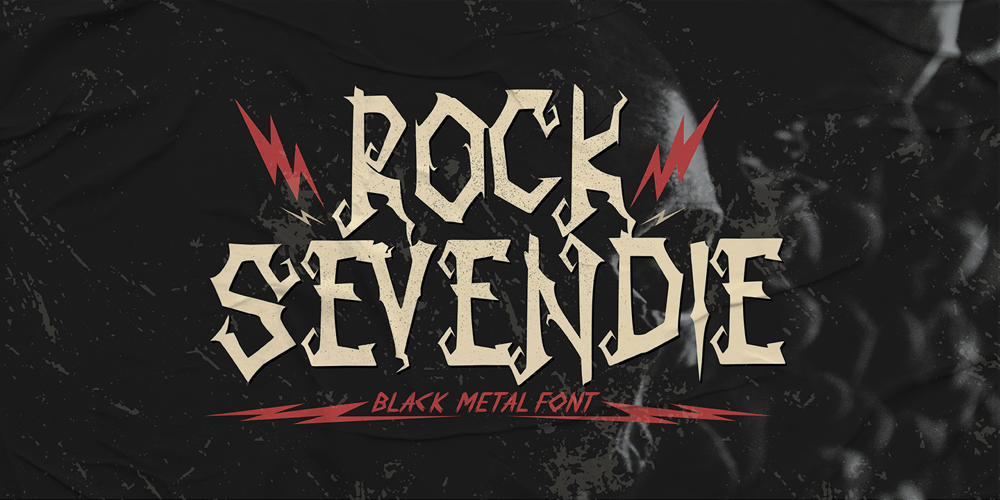
Rock Sevendie Font Family was designed by Sipanji and published by Sipanji21. Rock Sevendie contains 1 styles and family package options. Rock Sevendie is a font that has a metal character, and has a simple look, with many characters, and multilingual support. better used for band logos, music events, banners, posters, advertising, apparel, and others.